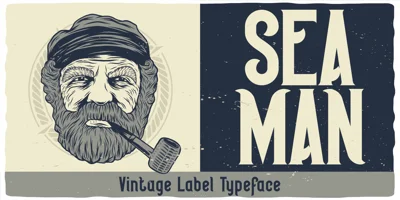
Seaman Font
The Seaman Font is a superb choice for projects that need a vintage, nautical, and rustic aesthetic. Its hand-drawn, slightly uneven letterforms and classic sailor-inspired style make it perfect for creating a sense of adventure and old-world charm. This font is an excellent fit for branding for seafood restaurants, coastal-themed events, or artisanal products. It's also great for creating authentic-looking posters and headers for websites that want to evoke a maritime, traditional, and welcoming atmosphere. The Seaman Font adds a layer of nostalgia and character to any design, making your work feel genuinely one-of-a-kind.
What makes this font so exciting is its ability to tell a story through its appearance alone. The Seaman Font looks like it was created with a well-used stencil or a weathered sign, giving each letter a slight imperfection that adds to its charm. This handcrafted quality makes it feel personal and approachable, creating an instant connection with the viewer. Despite its rustic look, the font maintains high legibility, ensuring that your message is both stylish and clear. It’s a typeface that works hard to convey a sense of authenticity and timelessness, making it a valuable asset for any project that aims for a classic, lived-in feel.
The Seaman Font family often includes a variety of styles and textures to give you more creative flexibility. While its main weight is perfect for headlines, the family might also include a regular version with a cleaner look or a more heavily distressed variant for added effect. This range of options allows you to build a cohesive typographic system that is consistent across all your materials. The Seaman Font is a great opportunity to explore these different styles and see how they can work together to create a powerful and unified brand identity.
By choosing the Seaman Font, you’re opting for a typeface that works hard to not only convey information but also to build an entire atmosphere. It’s a font that ensures your projects are not just seen, but experienced, leaving a lasting impression on your audience.